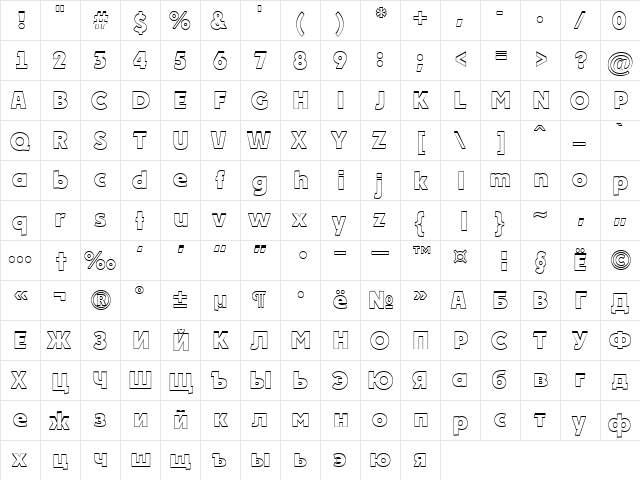
a_PlakatCmplSh ExtraBold
Design Context for a_PlakatCmplSh Typeface
a_PlakatCmplSh is a composed and adaptable typeface that performs quietly and consistently across a wide range of design contexts. The heavy weight commands attention and anchors typographic hierarchies.